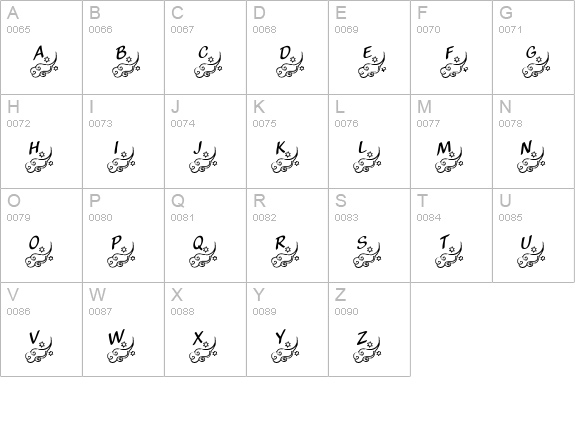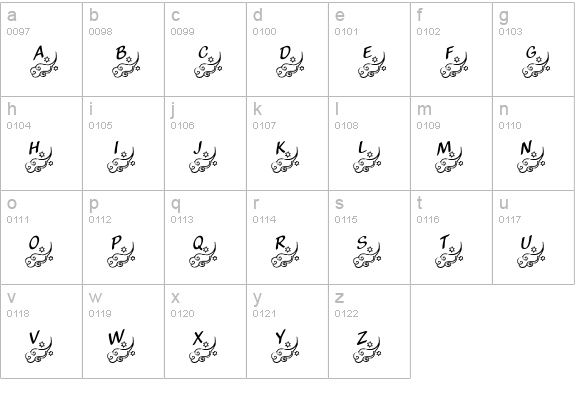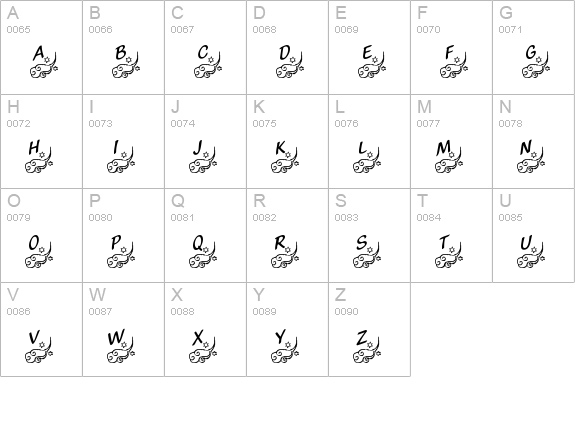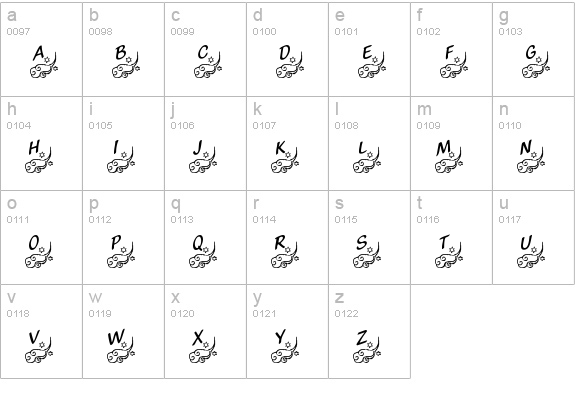
KR Winds Of Change Font Details
Introducing KR Winds Of Change font, a versatile and elegant typeface that will add a touch of sophistication to your design projects. This unique font features fluid lines and graceful curves, making it perfect for a wide range of applications, from branding to invitations to packaging. What sets KR Winds Of Change font apart is its effortless blend of modern and classic design elements, creating a timeless and stylish look that will elevate any project. Whether you're working on a sleek logo or a refined wedding invitation, this font is sure to make a statement. Best of all, KR Winds Of Change font is available for free download at FontsMarket.com, making it accessible to designers of all levels. Don't miss out on the opportunity to add this stunning font to your collection and elevate your designs with its beauty and versatility.